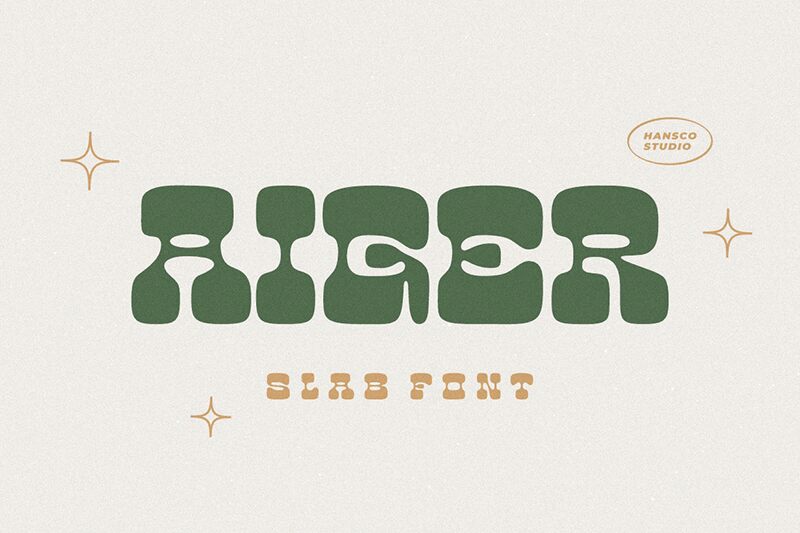
Aiger is a free bold display font crafted in a Western style by HansCo. Its thick curves and curvy outline are a representation of the 60s and 70s, which Aiger carries in the shape of its uppercase letters and numbers. Aiger is also characterized by its expanded letterforms, which in addition to its bold features add strength to its appearance.
Aiger is perfect for branding projects and packaging design that require strong fonts, bold logotypes and labels, posters and flyers, quotes, apparel design and textile printing, etc. You can freely use this free font for personal as well as commercial purposes.